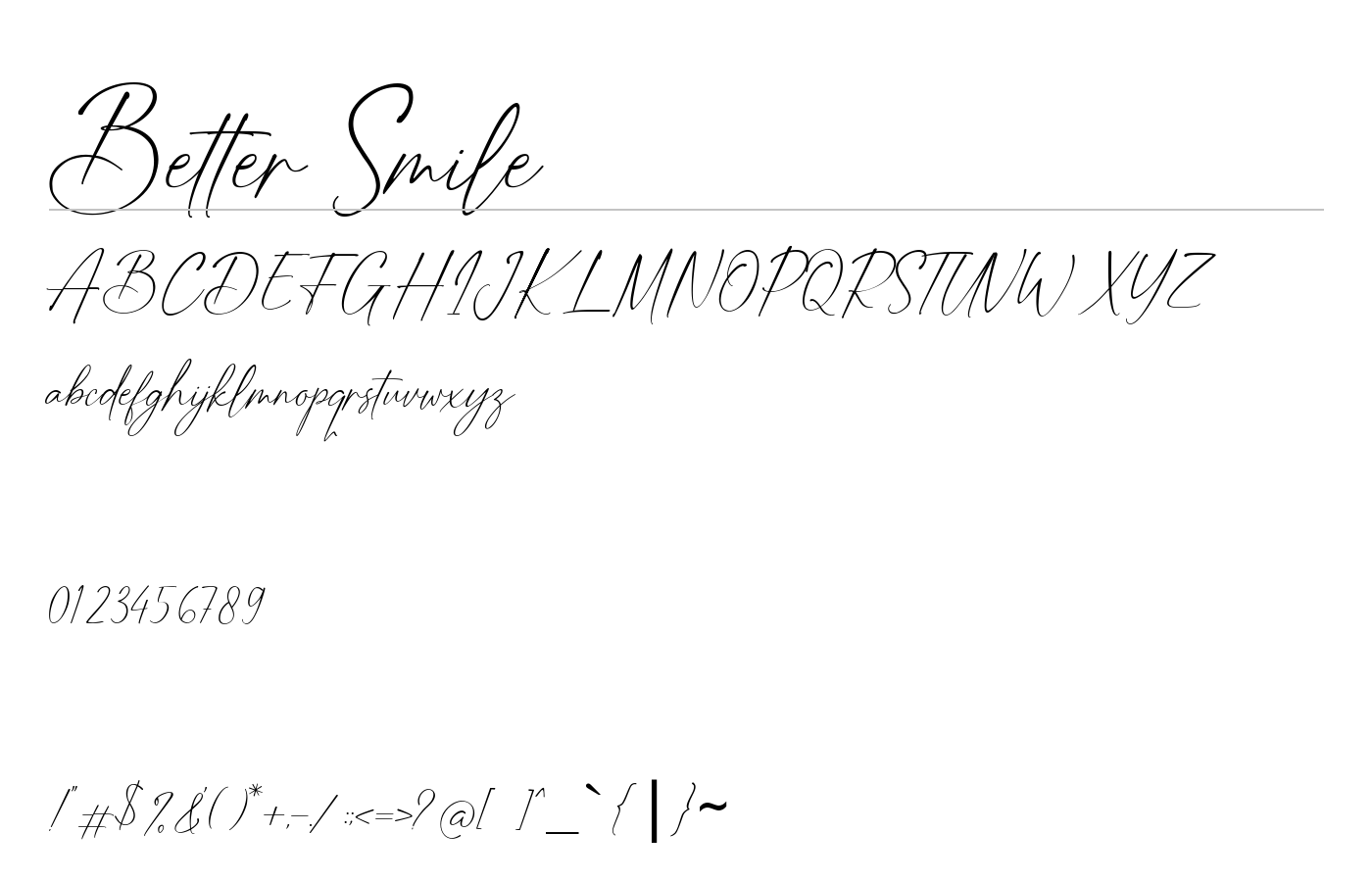
Better Smile Font is an elegant, light script typeface with delicate, flowing strokes that evoke a handwritten, personal touch. Its slender, airy letterforms and graceful curves make it perfect for luxury branding, invitations, and feminine designs that require a refined, sophisticated look. This font shines best in headlines and logos where its stylish, modern charm can truly stand out.
Better Smile Font
About Better Smile Font
| Font family | Better Smile Font |
| Designer | Heinzel Std |